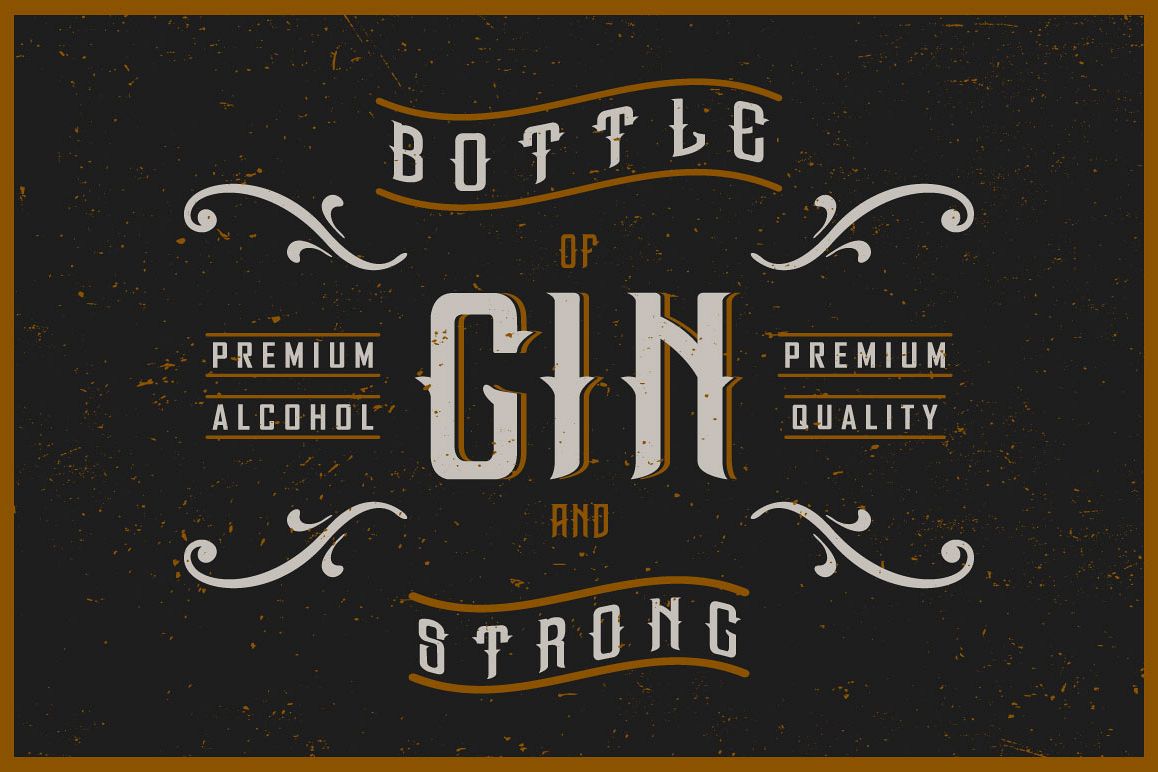
Gin handcrafted typeface
Bottle of Gin base
Bottle of Gin shadow
Bottle of Gin with shadow
Introducing a vintage look label typeface named "Gin". It's made in strong and vintage label style. Typeface is good looking on any labels design.